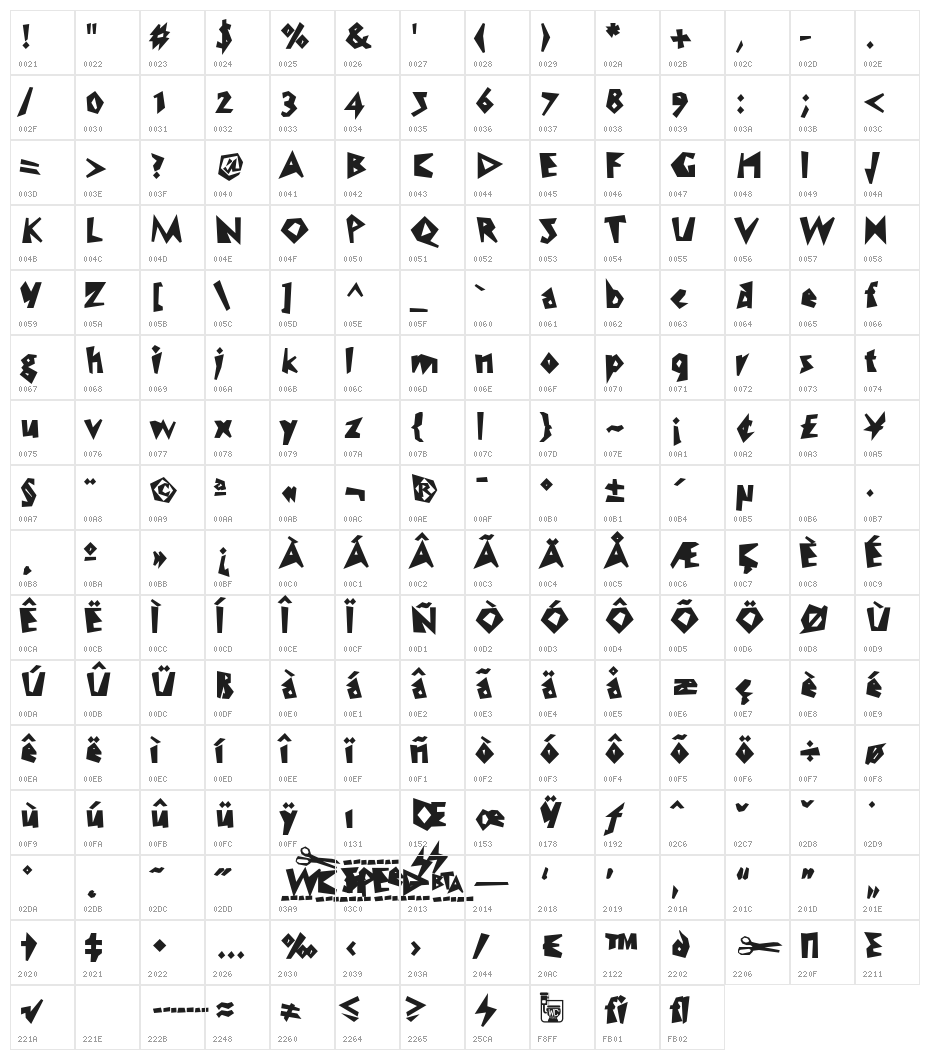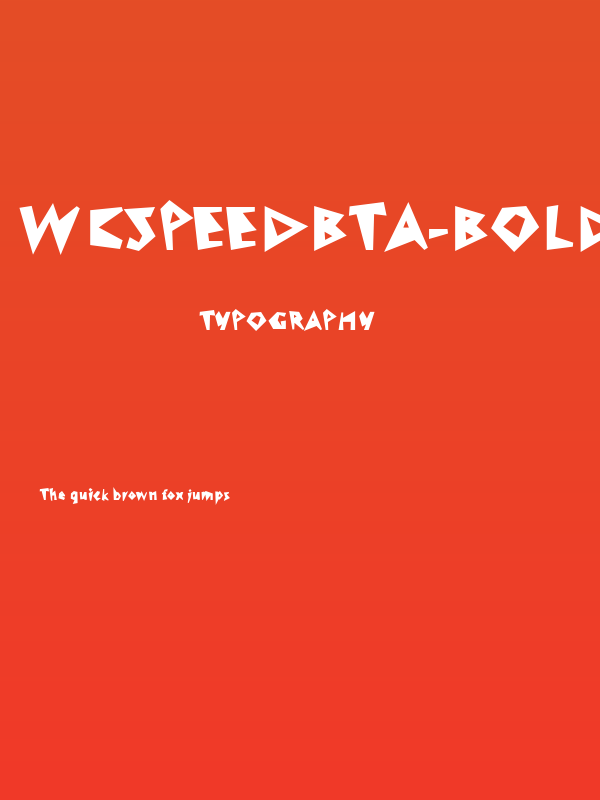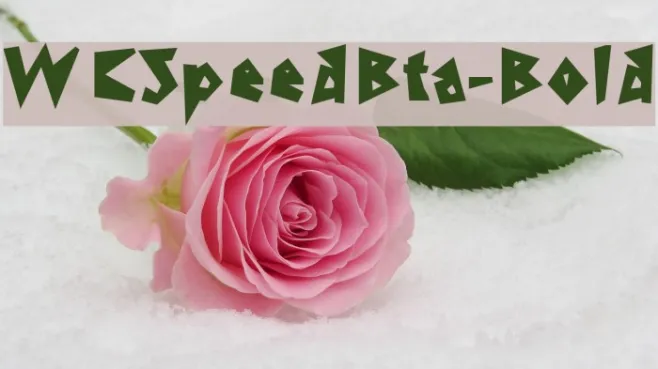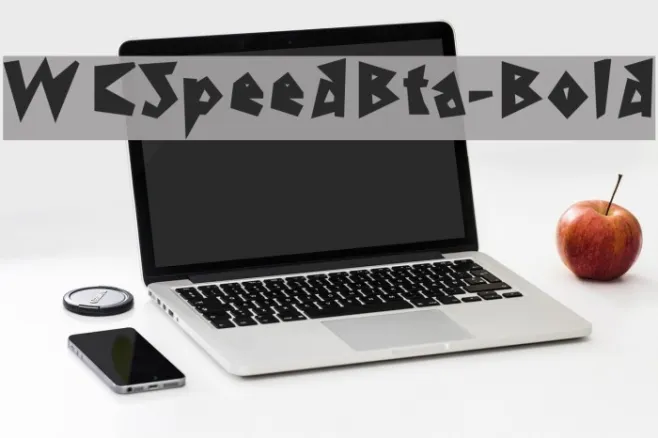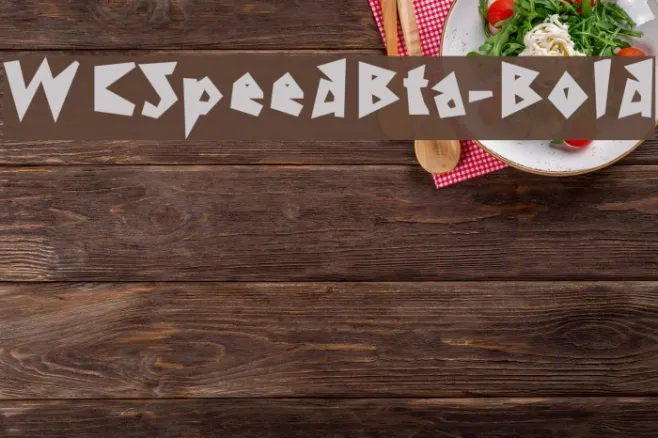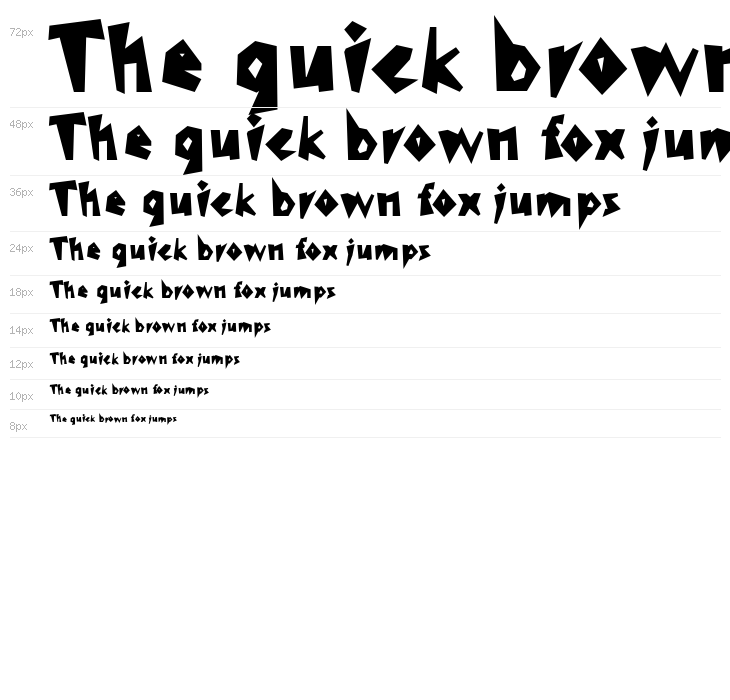
WCSpeedBta-Bold Font
WCSpeedBta-Bold Description
This font features a bold, angular design with sharp, jagged edges that give it a dynamic and aggressive appearance. The characters are highly stylized, with irregular shapes that create a sense of movement and energy. This font is reminiscent of graffiti or street art, making it ideal for projects that require a bold and unconventional look. The uppercase and lowercase letters maintain a consistent style, while the numbers and special characters are equally distinctive, ensuring a cohesive appearance across all text elements.
| Proposed Projects | Ideal for music album covers, skateboarding brands, streetwear fashion, and urban-themed posters. |